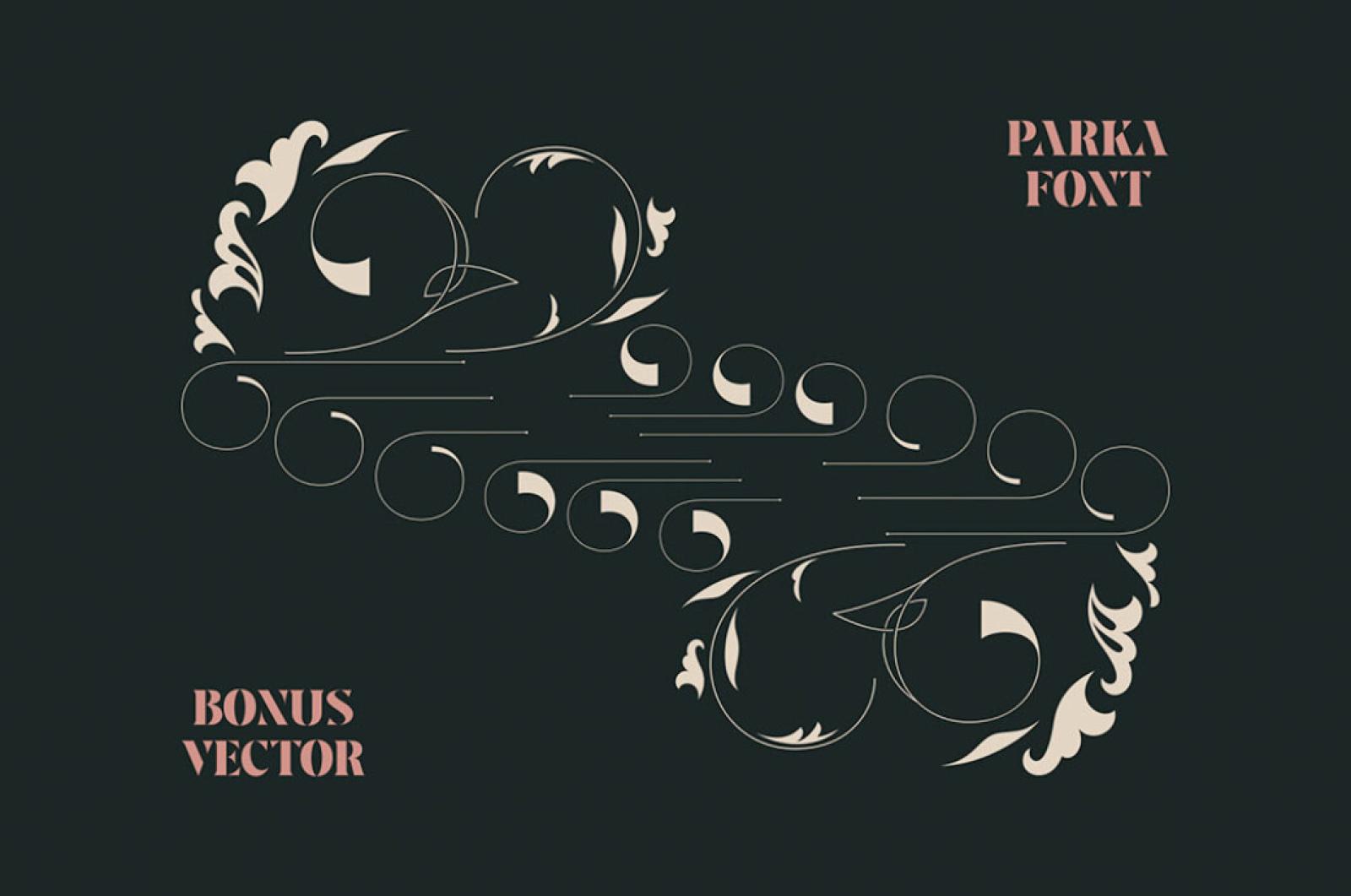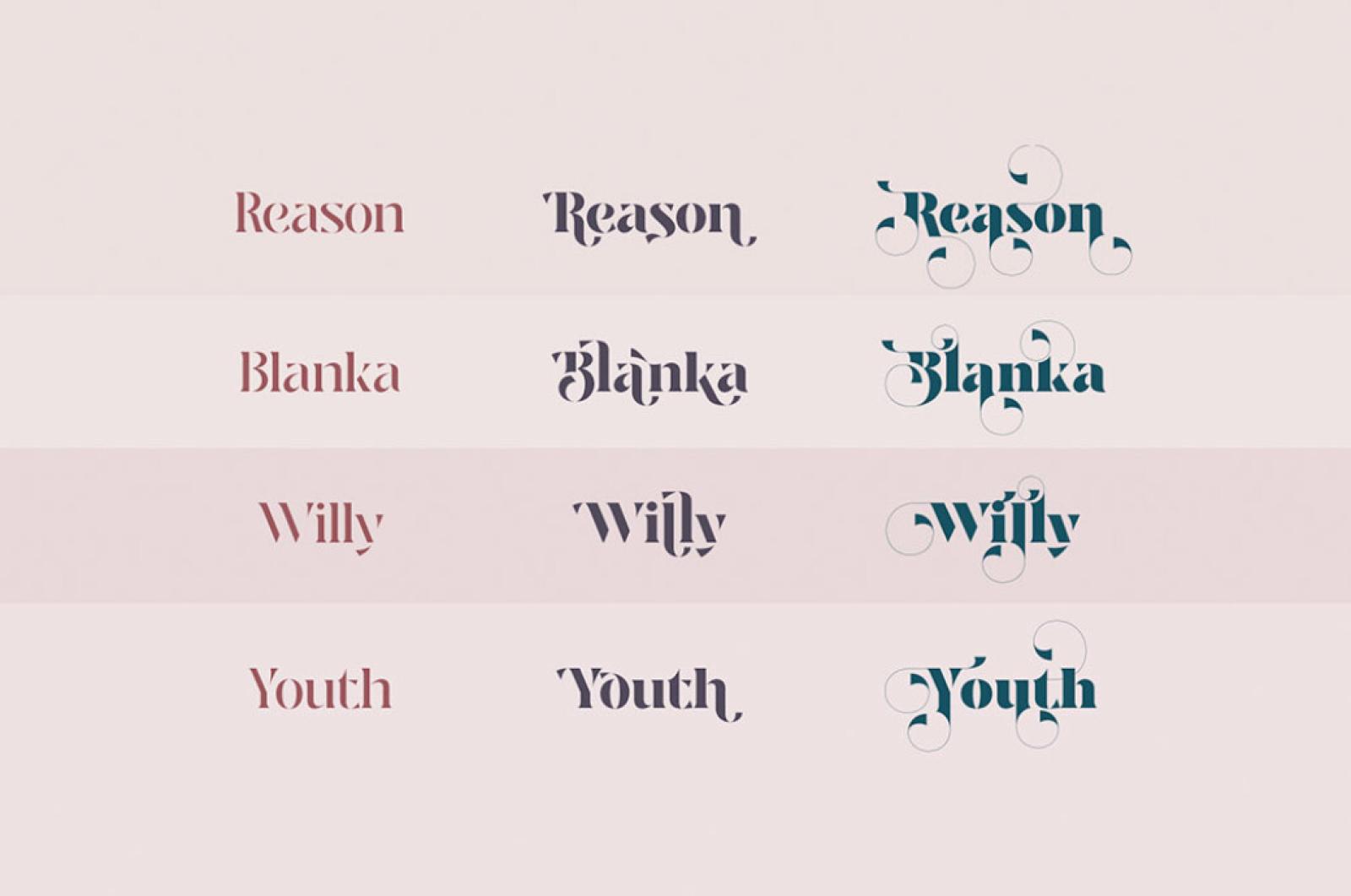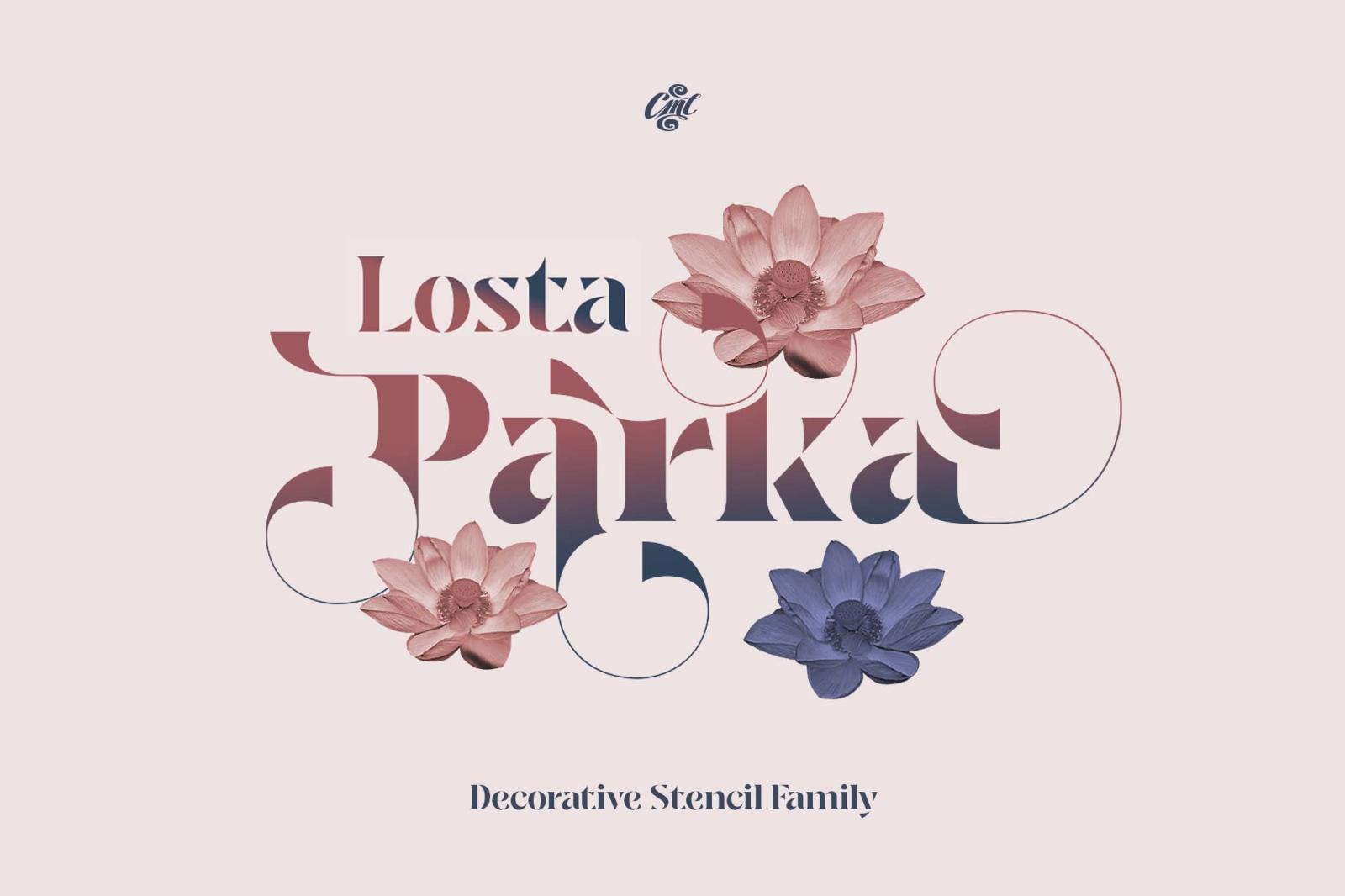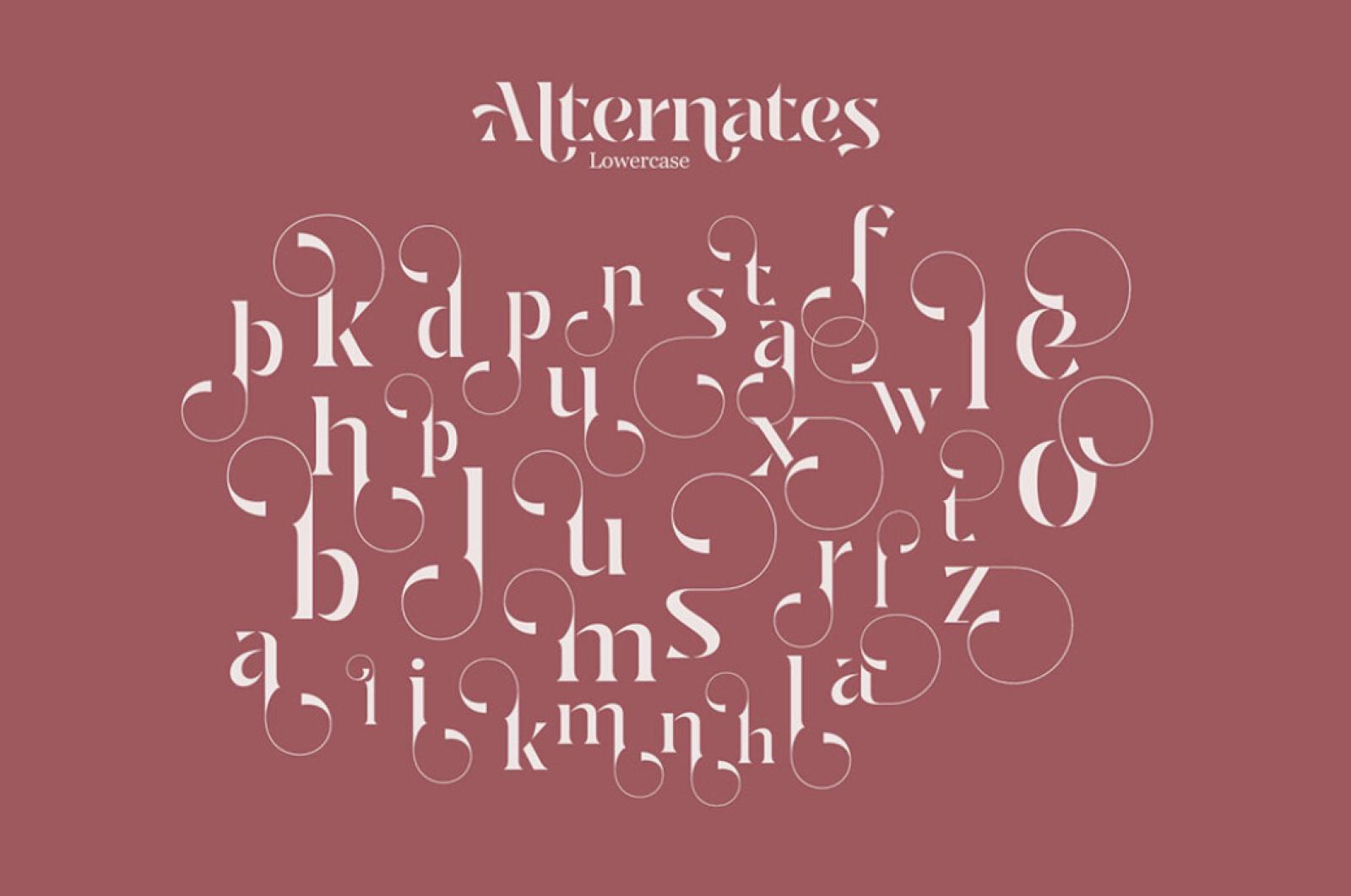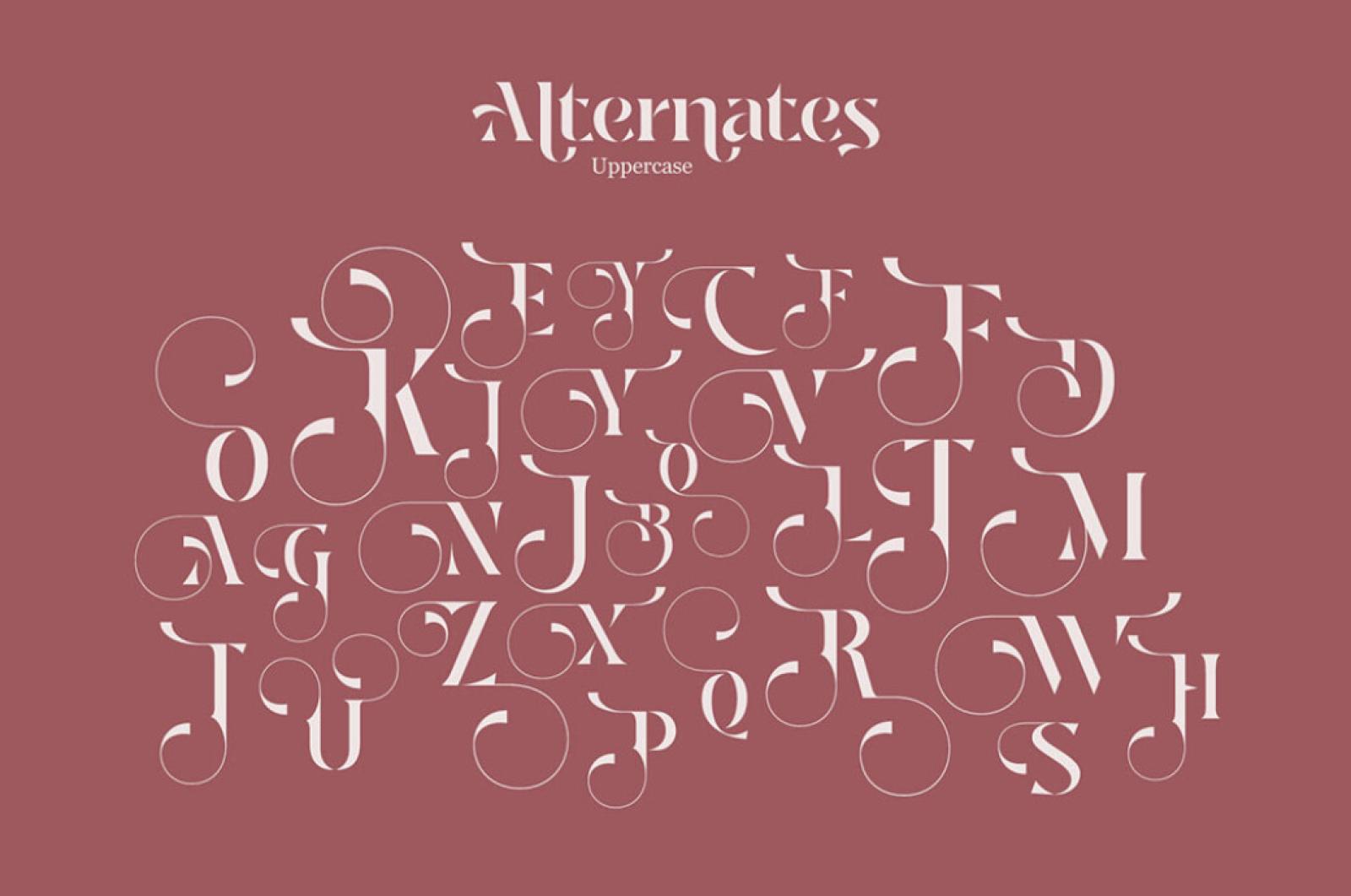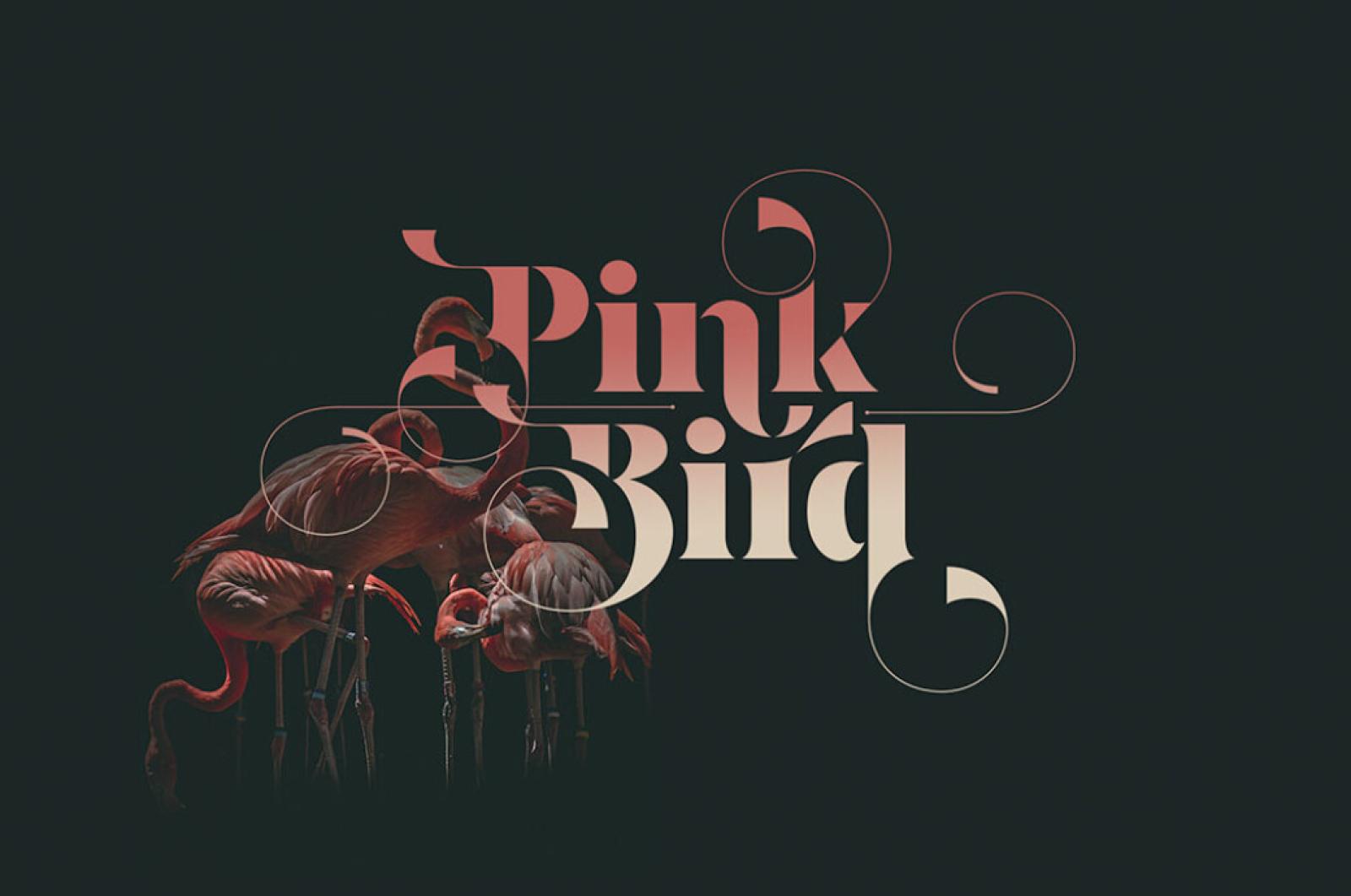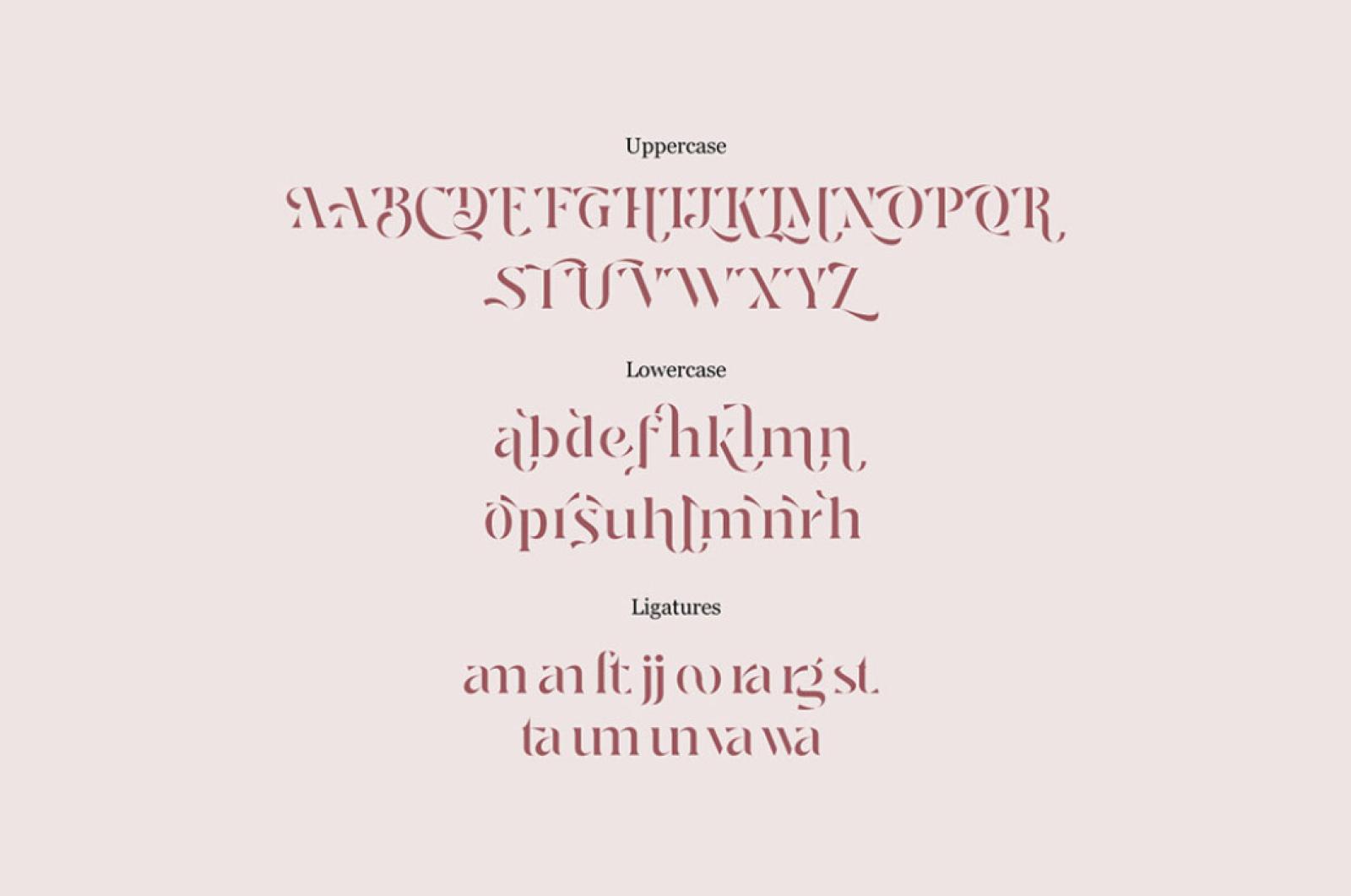
Losta Parka — Decorative Stencil Font Family
We love the way stencil fonts mix lightness with confident expressiveness. Just think of how many emotions and messages you can convey with one, or even with an entire font family!
Would it be possible to think of more beauty delivered with a single character? Have no answer to this question, but let's just admit that Parka font family sets a pretty high bar. Whatever project you seek to emphasize, choosing one of 9 provided font weights will bring you to a jaw-dropping result. Posters, cards, invitations, branding design logos, apparel prints — there are no limits to the way you can use it. Not only do you receive an extensive set of fonts, but there are also 120+ alternative characters, ligatures, and a handy bonus: an ornament in the vector AI & EPS formats.